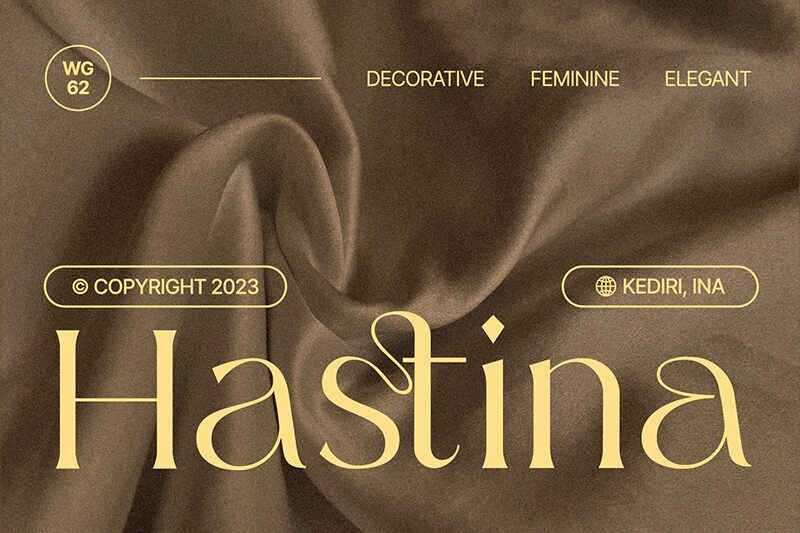
Hastina Free Font
Hastina font, designed by Warung Grafis 62, is an elegant serif font that brings chic and subtle sophistication to your designs. With flowing lines and minimalist charm, this beautiful modern free font creates a warm and inviting ambiance in whatever project it’s used.
Hastina is ideal for wedding invitations, thank you cards, quotes, greeting cards, logos, business cards, packaging design projects, poster titles or subtitles. Take advantage of its unique beauty in magazine covers or high-end restaurant menus as well!